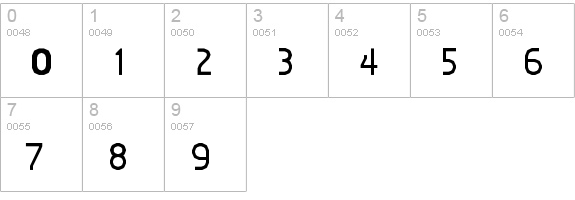
SimplexBold Font Details
Introducing SimplexBold, a stunningly bold and versatile font that exudes confidence and modernity. With its clean lines and commanding presence, SimplexBold is the perfect choice for any design project that requires a touch of strength and elegance. Whether used in a headline, logo, or body text, this font will captivate your audience with its bold and impactful aesthetic. But what sets SimplexBold apart from other fonts is its accessibility. It is not only visually striking but also freely available to download at FontsMarket.com. Yes, you heard it right - this remarkable font can be yours without any cost or restrictions. Now, you can elevate your designs without breaking the bank or compromising on quality. SimplexBold offers a wide range of characters, including uppercase and lowercase letters, numerals, punctuation marks, and special symbols. This versatility ensures that you have all the tools you need to create eye-catching designs across various mediums, from print to digital. The precise and well-defined letterforms of SimplexBold guarantee legibility, even at smaller sizes, making it suitable for both headlines and body text. Its bold weight commands attention, while the subtle curves and fine detailing add a touch of sophistication to your typography. Whether you are a professional designer or a beginner experimenting with fonts, SimplexBold is the perfect addition to your collection. Its timeless appeal and modern flair make it a go-to choice for a wide range of projects, including branding, packaging, editorial design, and more. So, why wait? Download SimplexBold today for free at FontsMarket.com and unlock the potential of this remarkable font. Elevate your designs and leave a lasting impression with the bold and captivating SimplexBold.